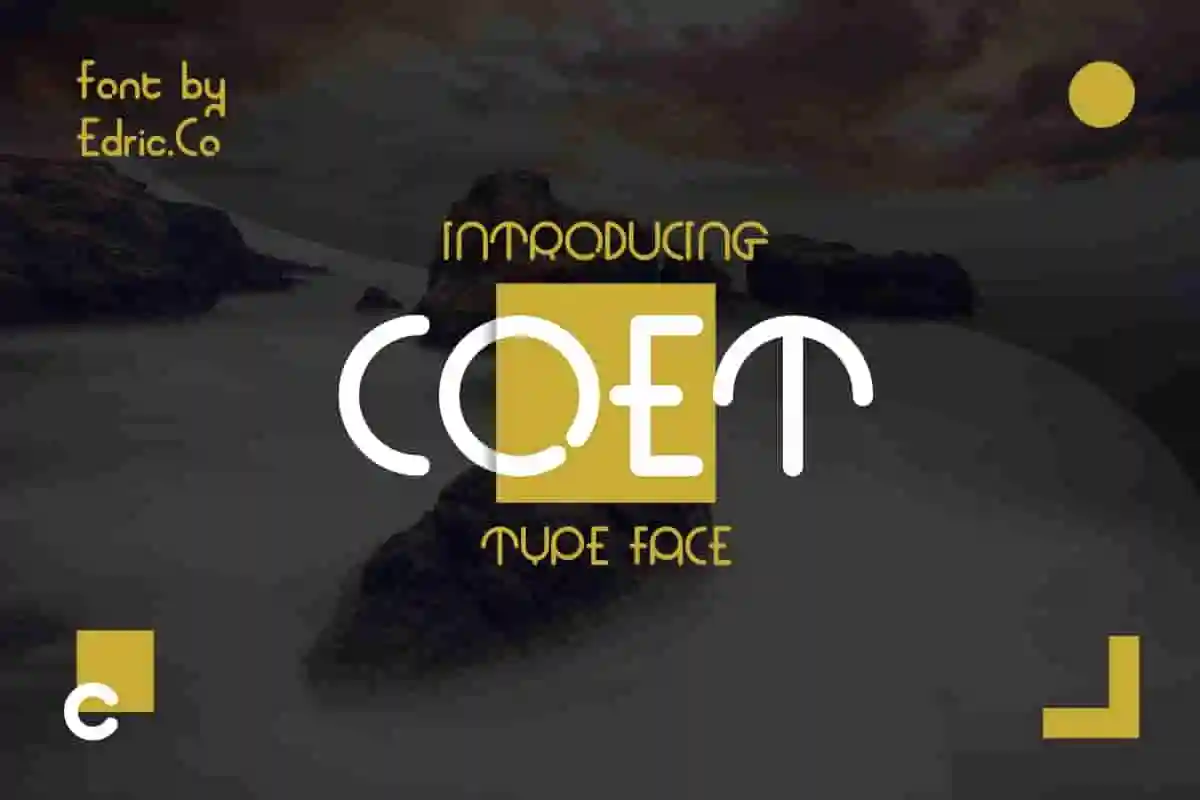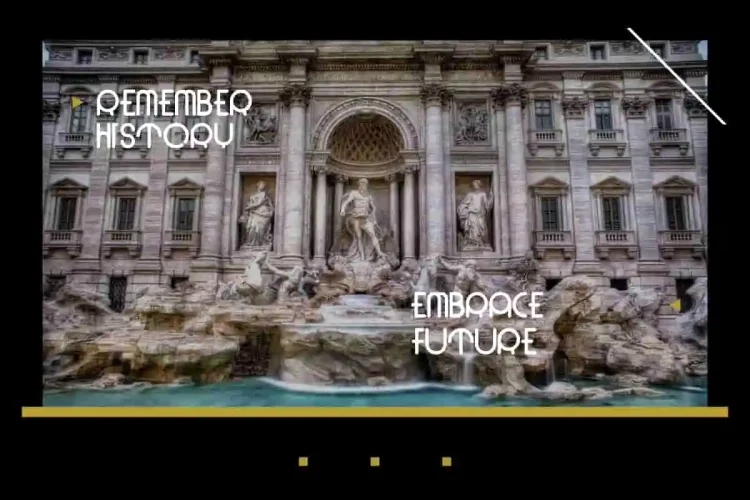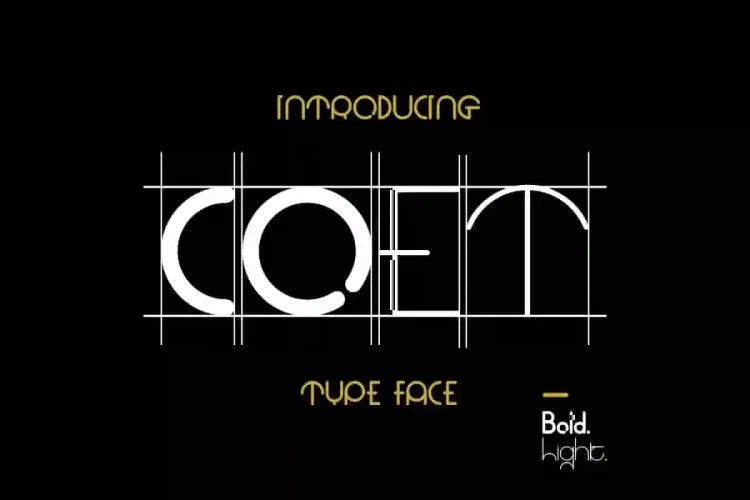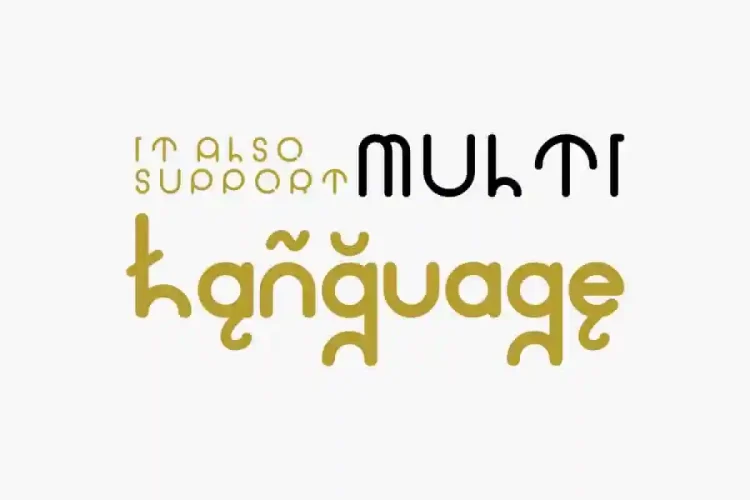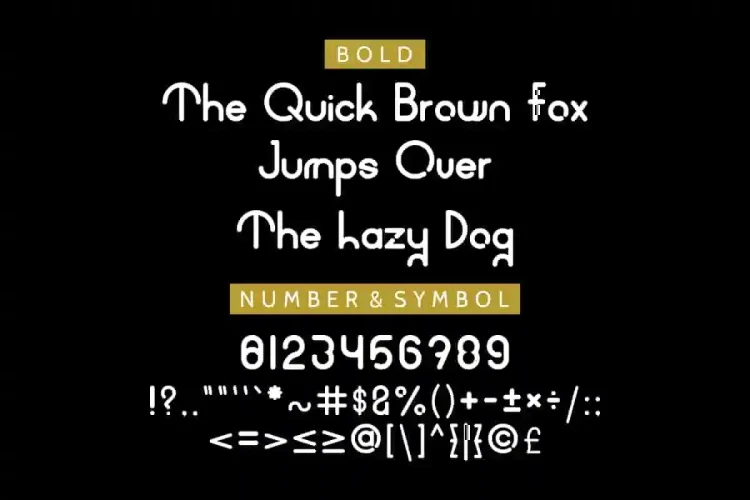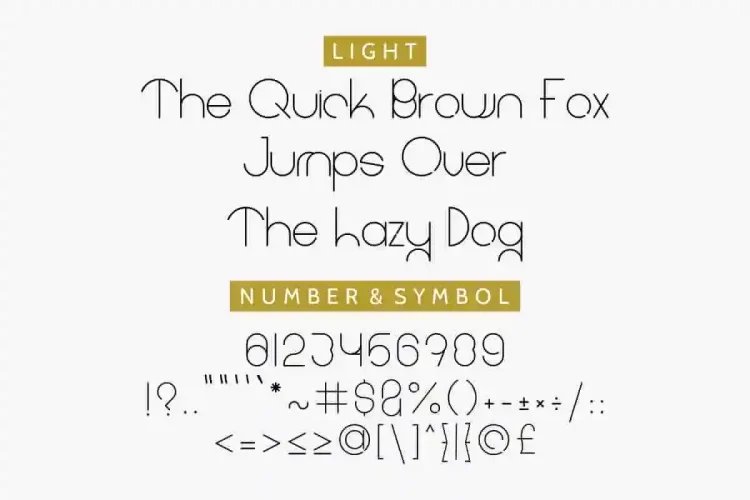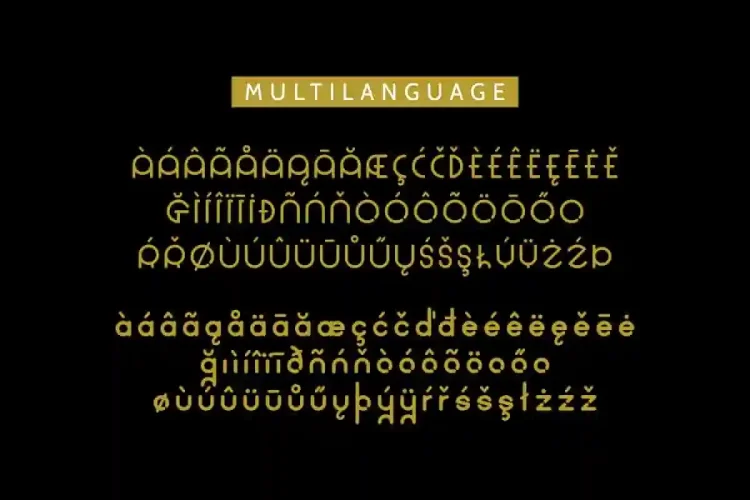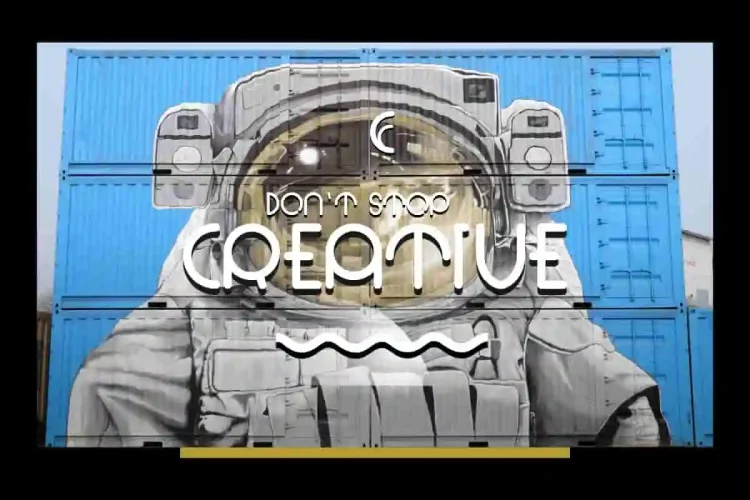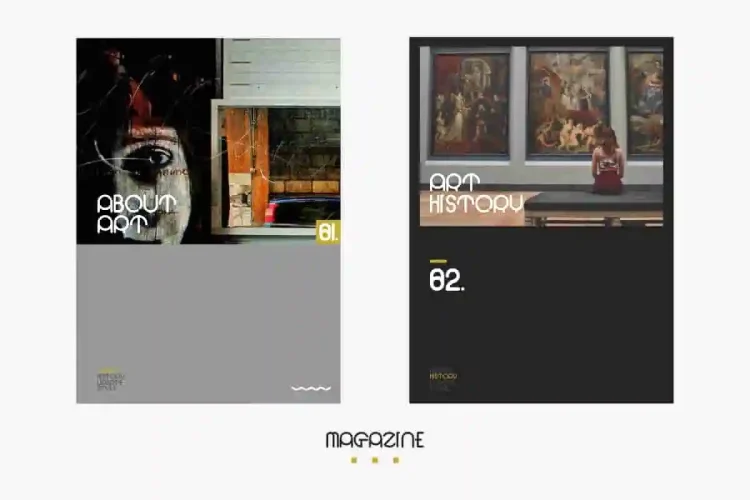
COET Modern Sans Serif Font
Introducing the COET Sans Serif Font – a stylish and modern sans serif typeface. It’s perfect for logos, branding, packaging, website headers, posters, and social media graphics. COET Sans Serif has clean shapes and artistic curves. It adds a bold yet elegant touch to designs. This font blends elegance with playful creativity, making it ideal for brands looking to project confidence.
COET Sans Serif Font includes uppercase and lowercase letters, numbers, punctuation, and symbols. This gives you full design flexibility. Its flexible letterforms create a minimalist yet powerful impression, suitable for logos, branding, packaging designs, website headers, posters, social media graphics, and magazine layouts. The balanced sizes and unique curves of each character give your text a strong, modern personality.
One of the standout features of COET Sans Serif Font is its rounded terminals and experimental strokes that mixes simple shapes with creative design. They’re perfect for bold display designs that grab attention.
Moreover, it is perfect for those who love clean, minimalist styles with a touch of creativity. Designers often use it for product packaging, editorial layouts, website hero texts, and bold promotional headlines. Add COET Sans Serif to your font collection and watch your designs stand out effortlessly.
• Modern sans serif with unique creative shapes
• Combines geometric structure and artistic design
• Highly readable with a stylish and contemporary look
• Perfect for branding, editorial layouts, packaging, and impactful displays